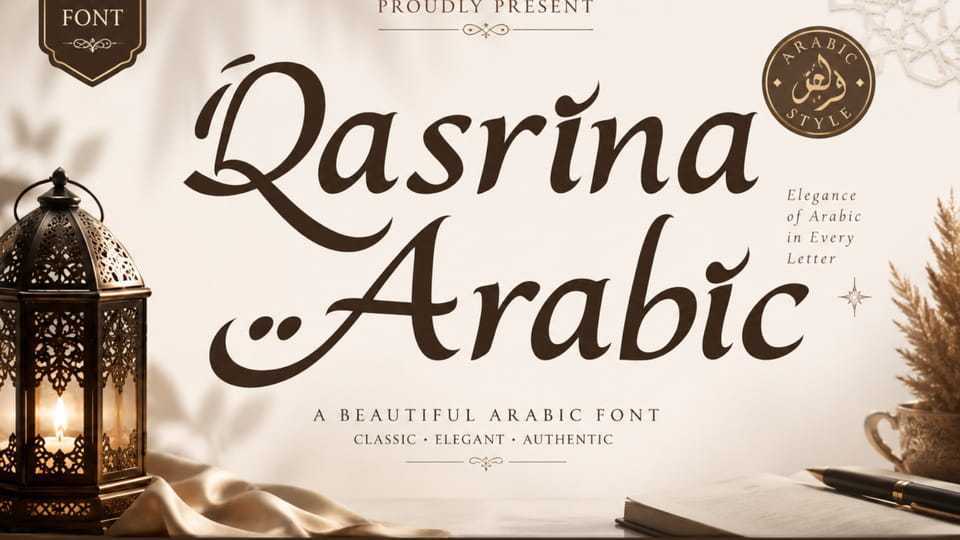
Download Qasrina Arabic font, an elegant and unique Arabic display typeface. It’s perfect for Eid al-Adha and Eid al-Fitr greetings, invitations, banners, branding, Arabic text, logos, stickers, summer text, movie titles, music, and more.